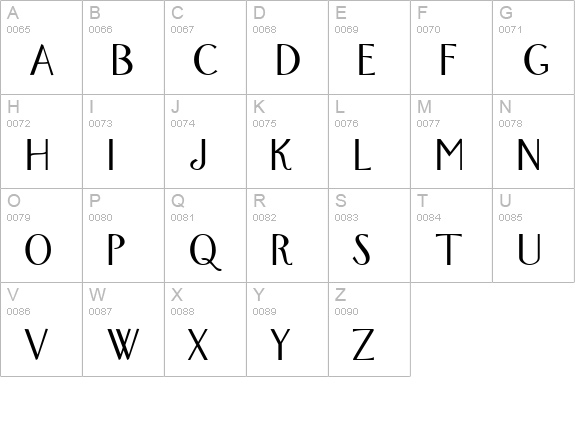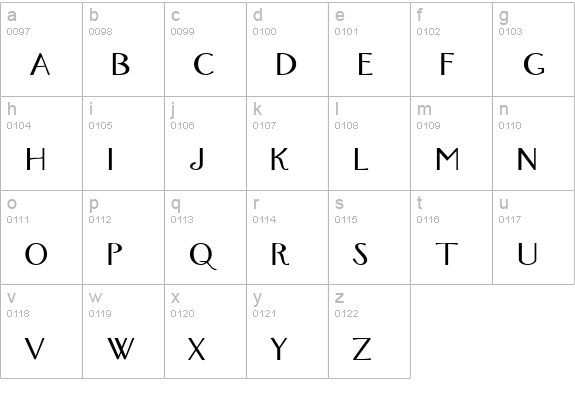
FoxTrot Regular is the standard, neutral variant in the FoxTrot typeface family \xE2\x80\x94 well suited to general body text, paragraphs, and standard typographic work.
FoxTrot Regular is a modern and versatile font that exudes a clean and elegant aesthetic. With its sleek lines and balanced proportions, this typeface is perfect for a wide range of design projects, from branding to editorial layouts. The gentle curves and sharp serifs of FoxTrot Regular add a touch of sophistication to any text, making it a popular choice among designers and creatives. The best part? FoxTrot Regular is available for free download at FontsMarket.com, allowing you to effortlessly incorporate this stylish font into your projects without breaking the bank. Whether you're working on a website, a poster, or a business card, FoxTrot Regular is sure to elevate your design with its timeless appeal and modern flair. Download FoxTrot Regular today and take your typography game to the next level!